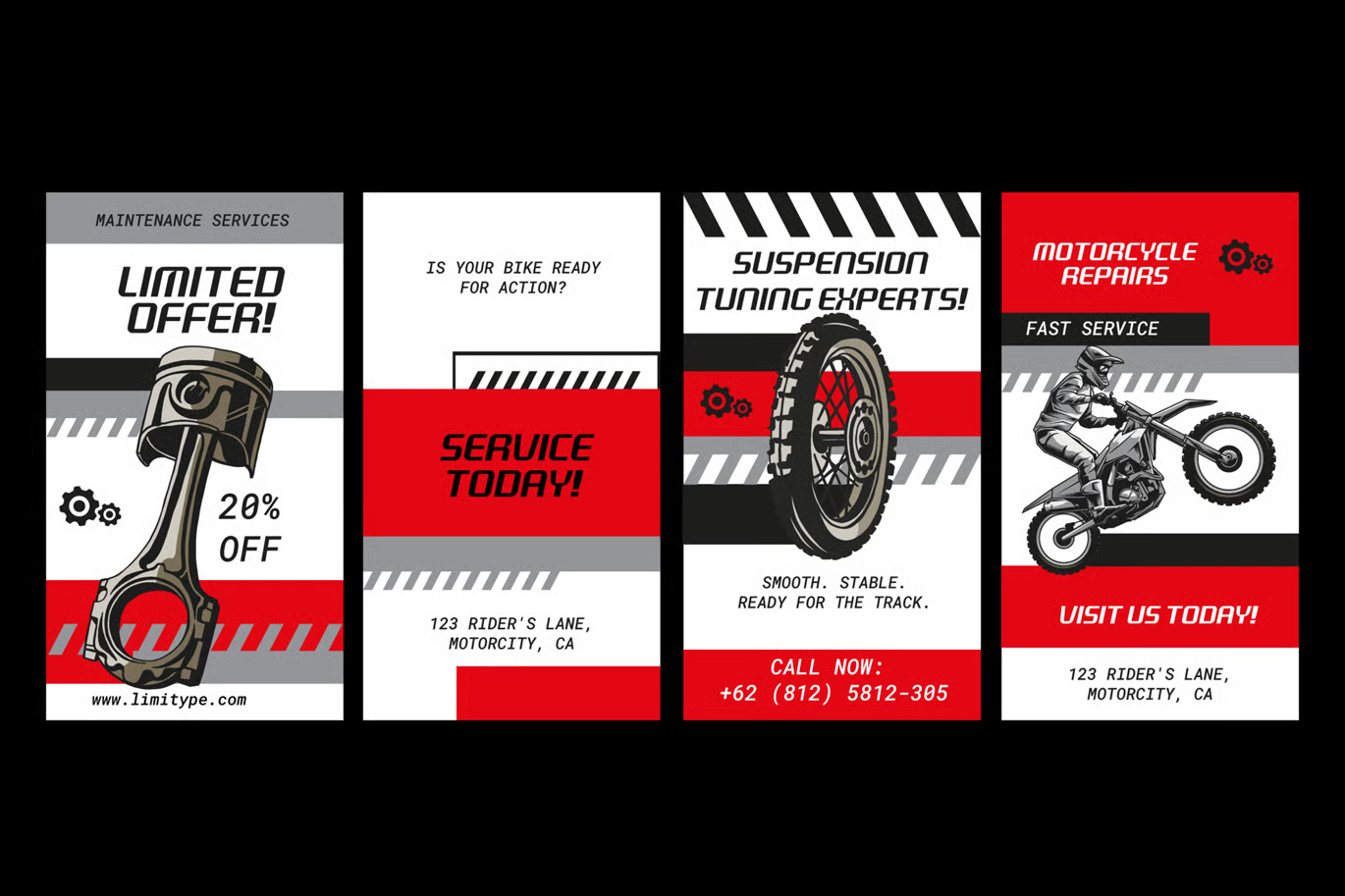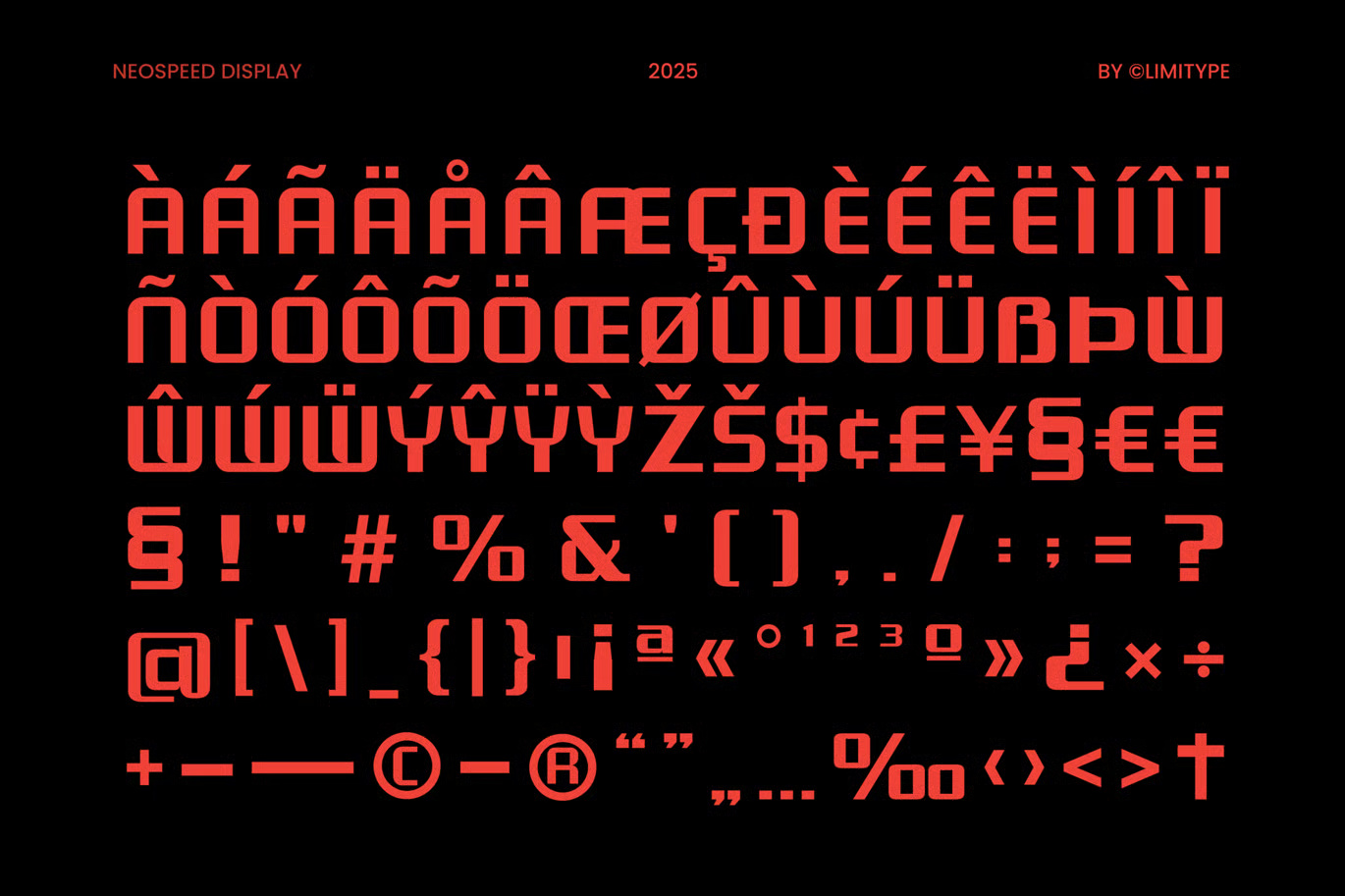
Neospeed is a cutting-edge futuristic typeface designed with sleek, aerodynamic forms that evoke motion, precision, and modernity. Its sharp angles and smooth curves bring a sense of velocity and technological sophistication, making it ideal for projects that seek to communicate speed, power, and forward-thinking design.
Whether you’re crafting branding for a high-performance automotive company, UI elements for a tech startup, immersive visuals for a sci-fi universe, or bold titles for gaming content, Neospeed injects your work with energy and innovation. With its dynamic structure and clean futuristic lines, this typeface stands out in any digital or print application where impact and style matter.
Neospeed Futuristic Sans-Serif Font